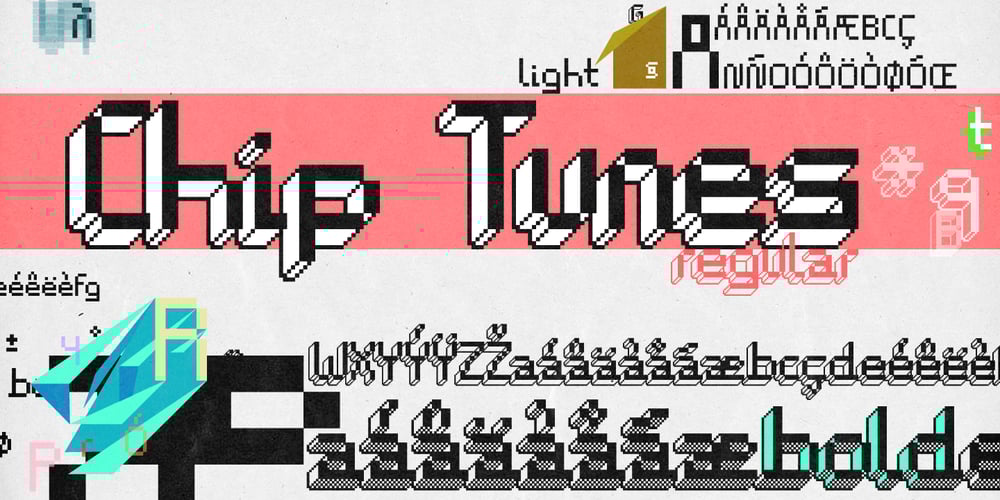
Chip Tunes Font Family was designed by Gilberto Moya Perona and published by Pisto Casero. Chip Tunes contains 3 styles and family package options. Chip Tunes font family is a geometric 3d pixel display typeface. It was inspired by–and designed while–listening to the chip tunes and 8bit styles of music. Designed in the UCLM, Cuenca in 2011.